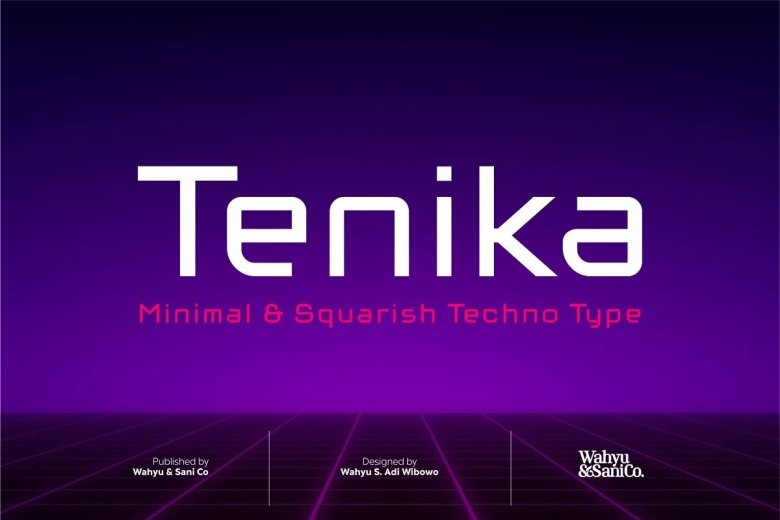
Tenika Font
Tenika Sans Serif Font
Tenika Sans Serif Font is an accidental sans-serif font manufactured by Wahyu & Sani Co. It has an angular design but smooth and sleek shapes. Designed based off a modified square for the small letters and developed to have the capital letters. Available in upright and oblique (italic). Support major western European Latin character, includes some fractions, ligatures. Also comes with Web Font files (.woff).